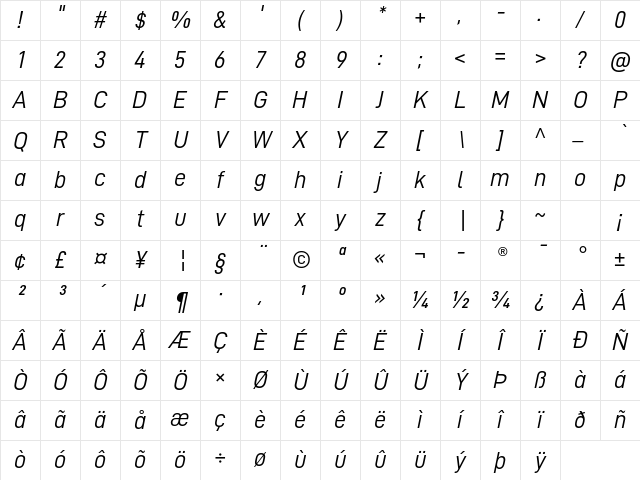
D-DIN is a composed and adaptable typeface that performs quietly and consistently across a wide range of design contexts. The slanted form adds forward momentum and visual energy.
Pro Tip: Use D-DIN for emphasis, pull quotes, and subheadings where its slanted energy can add rhythm to the layout.